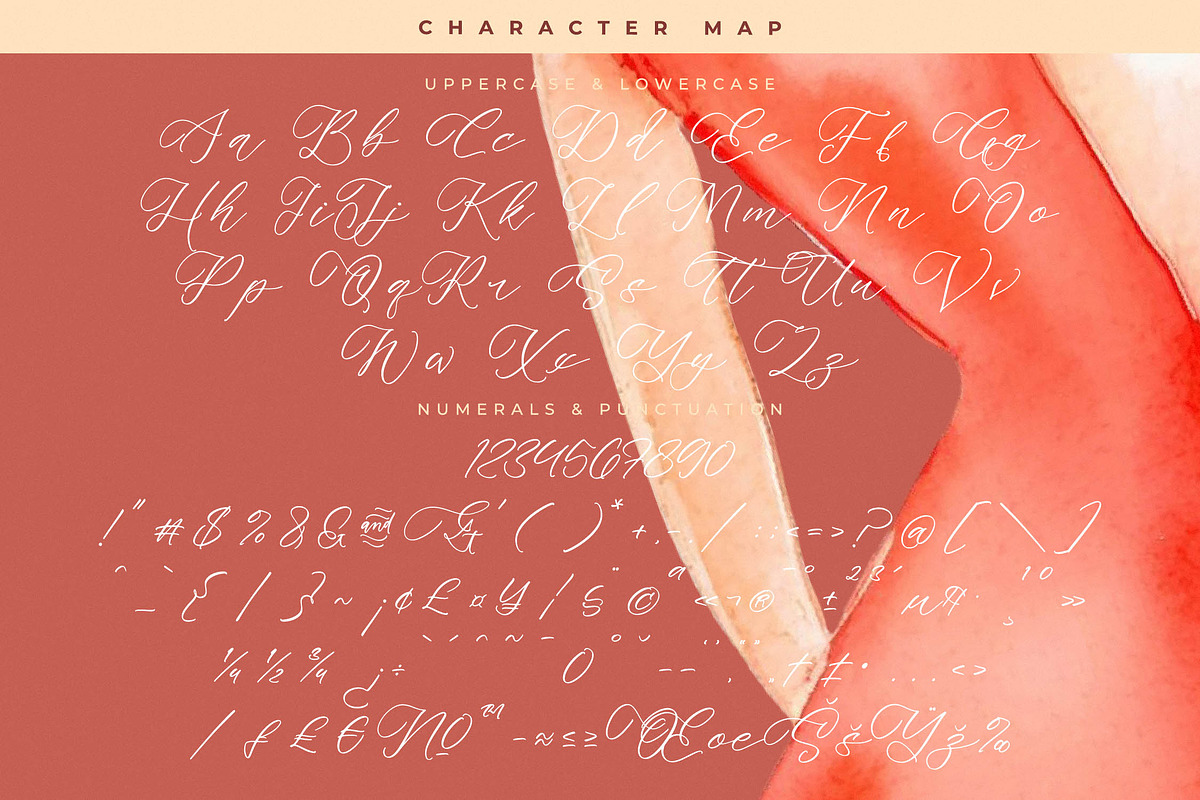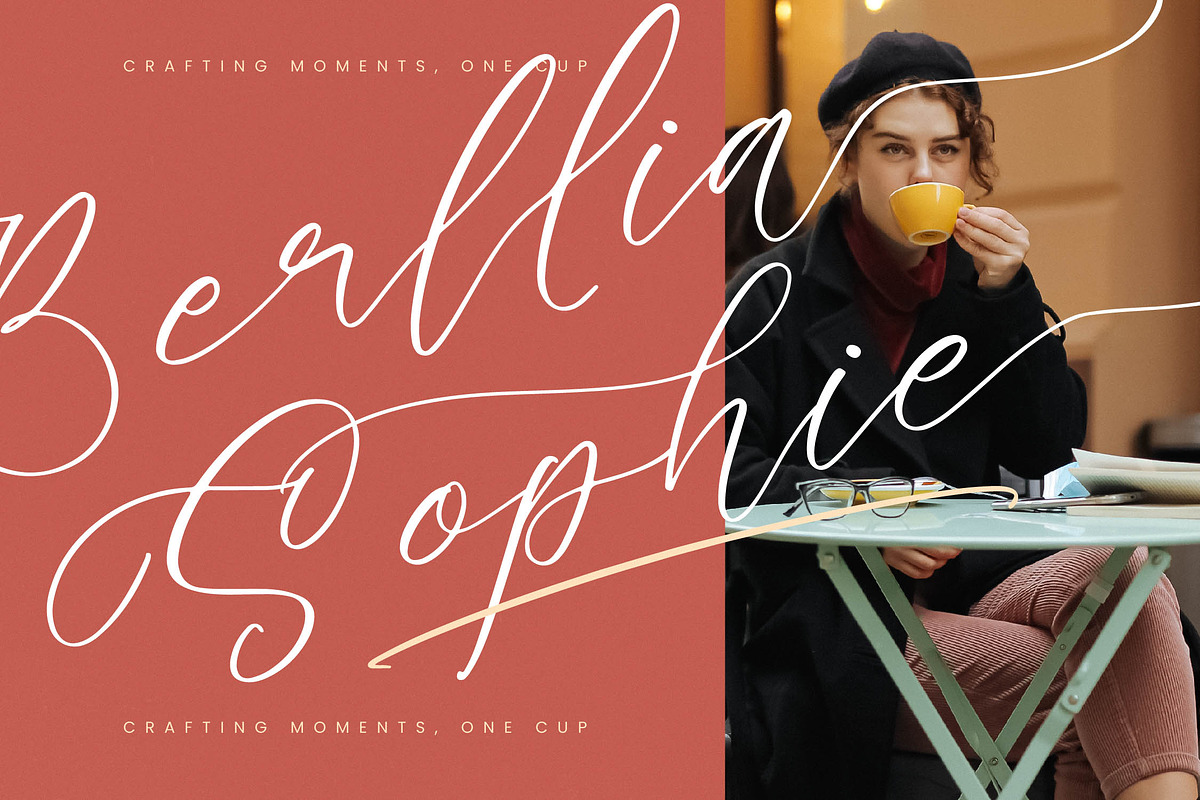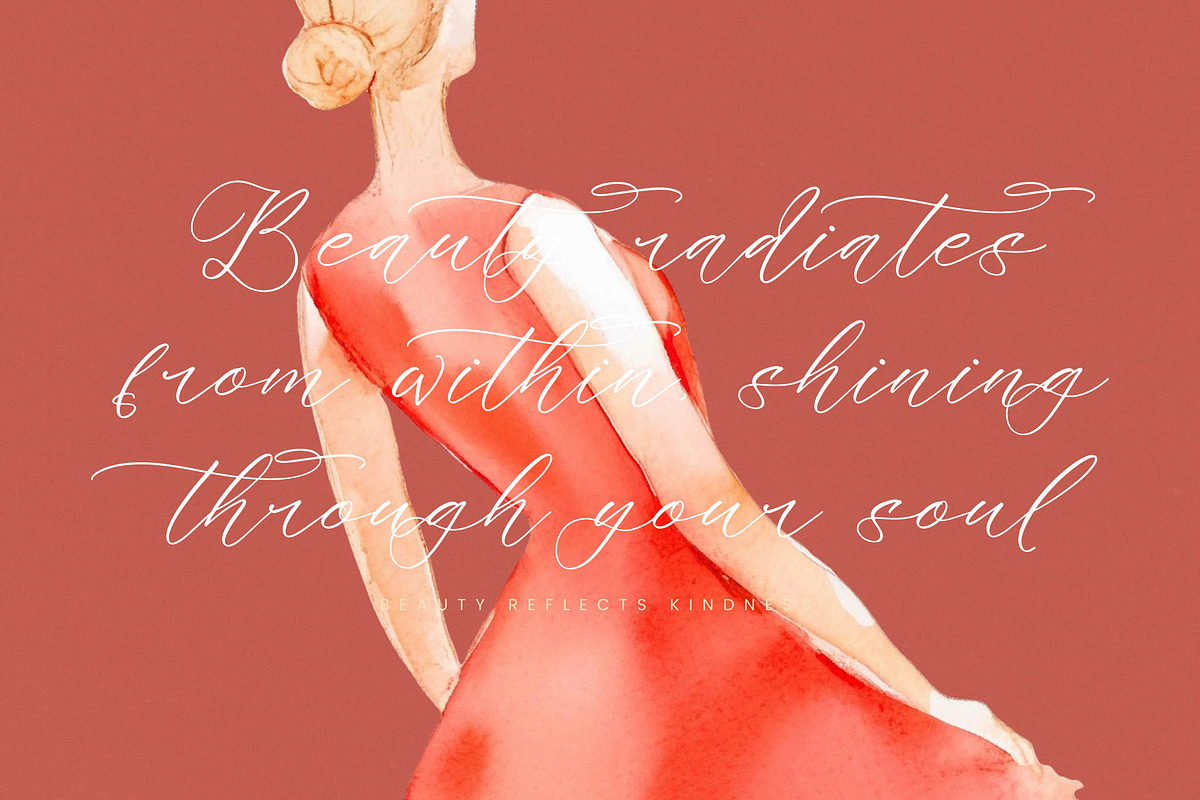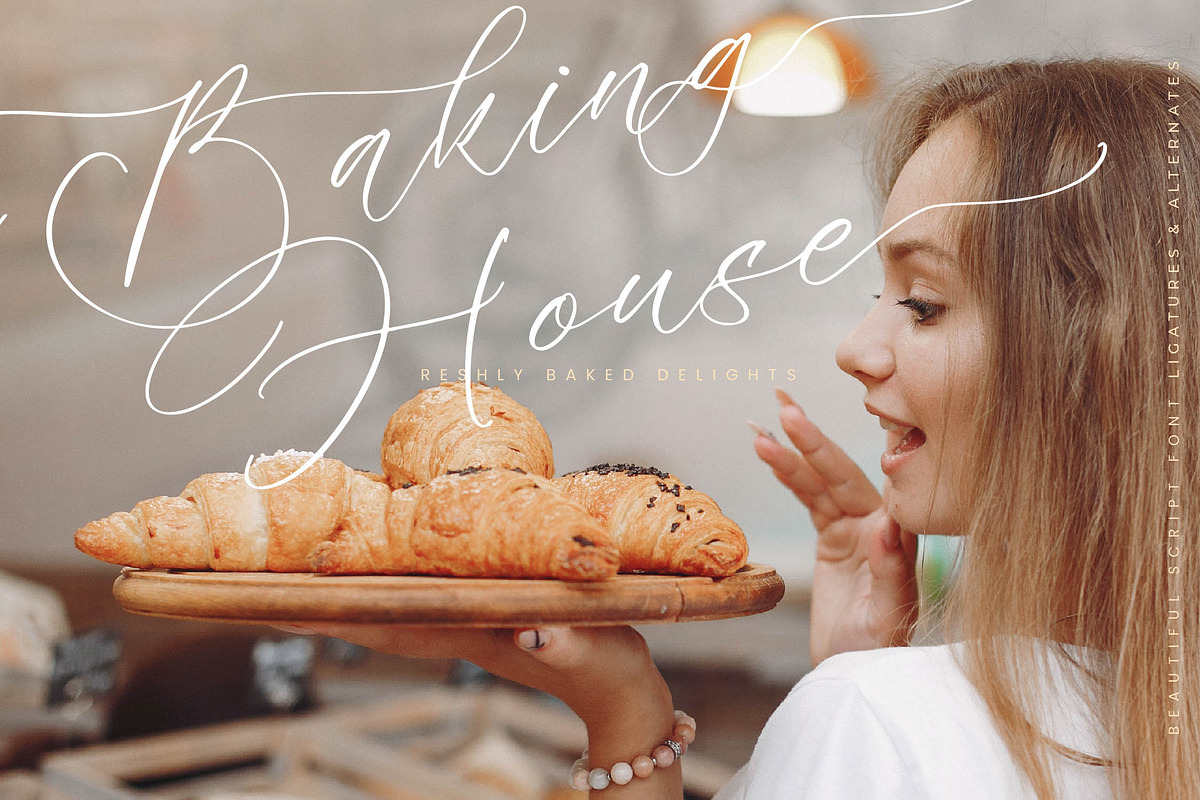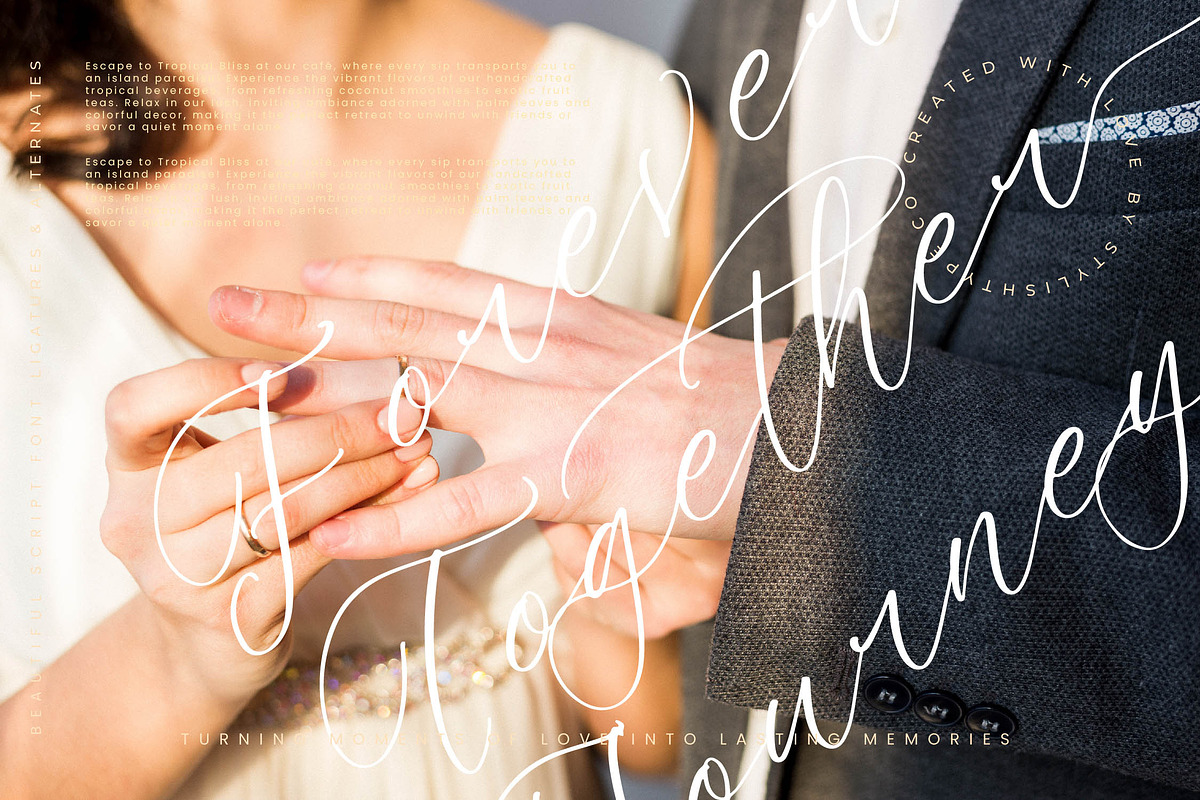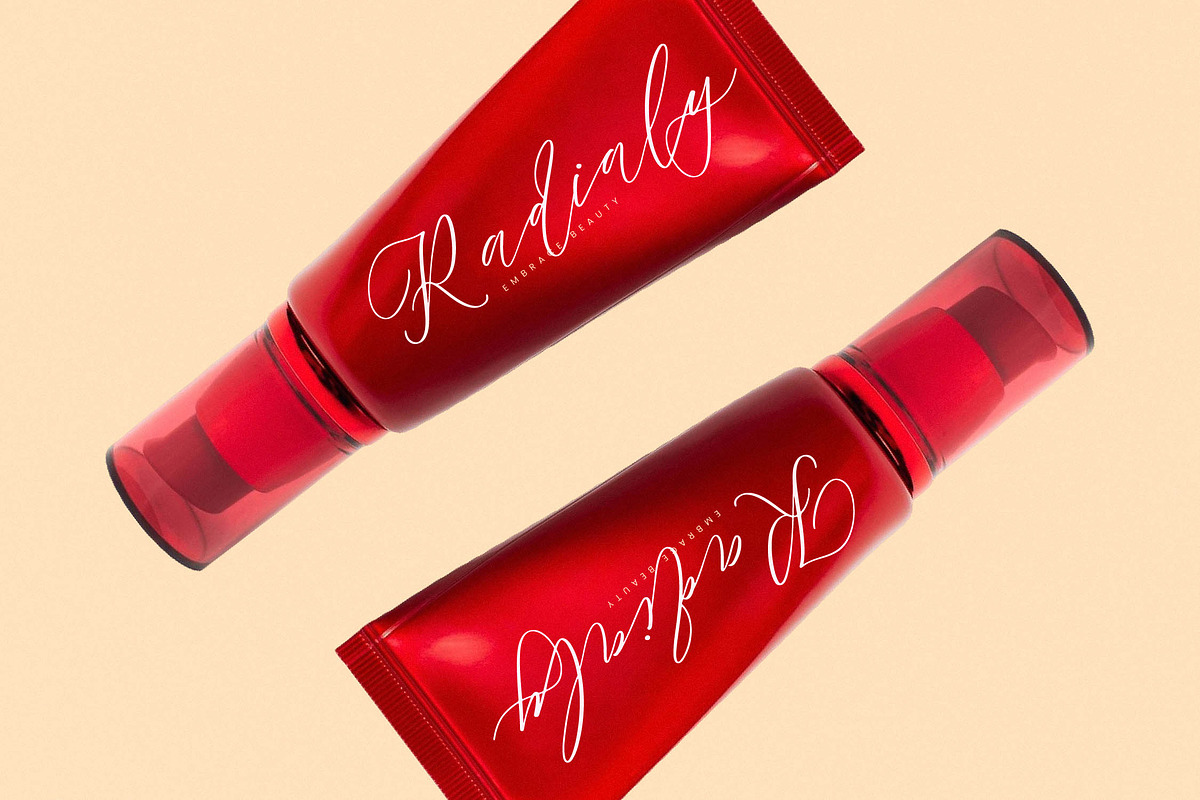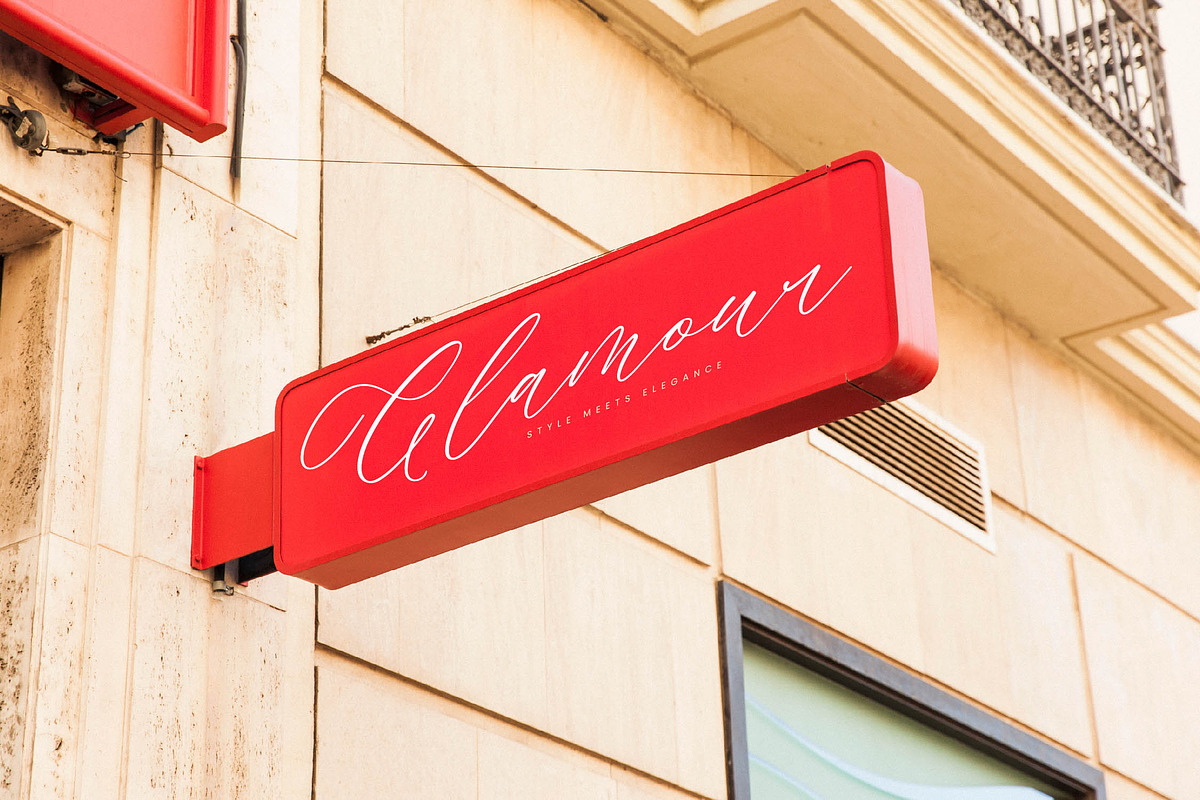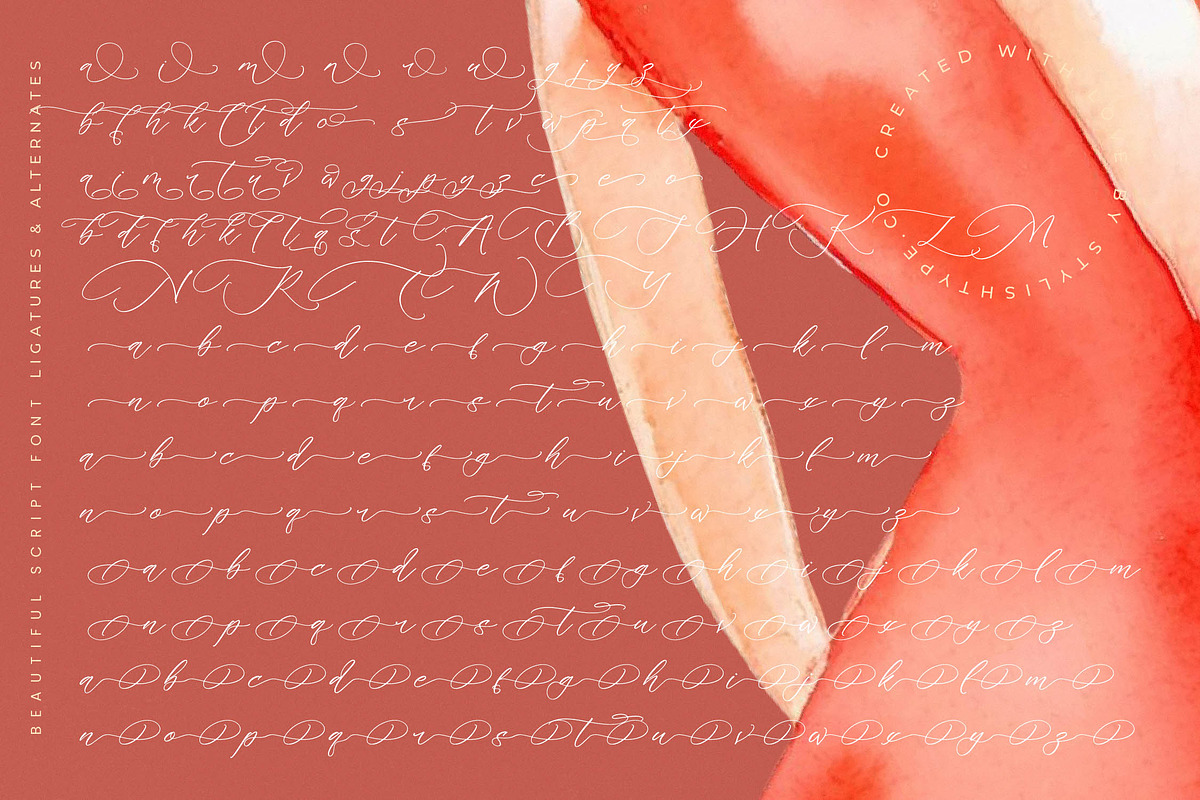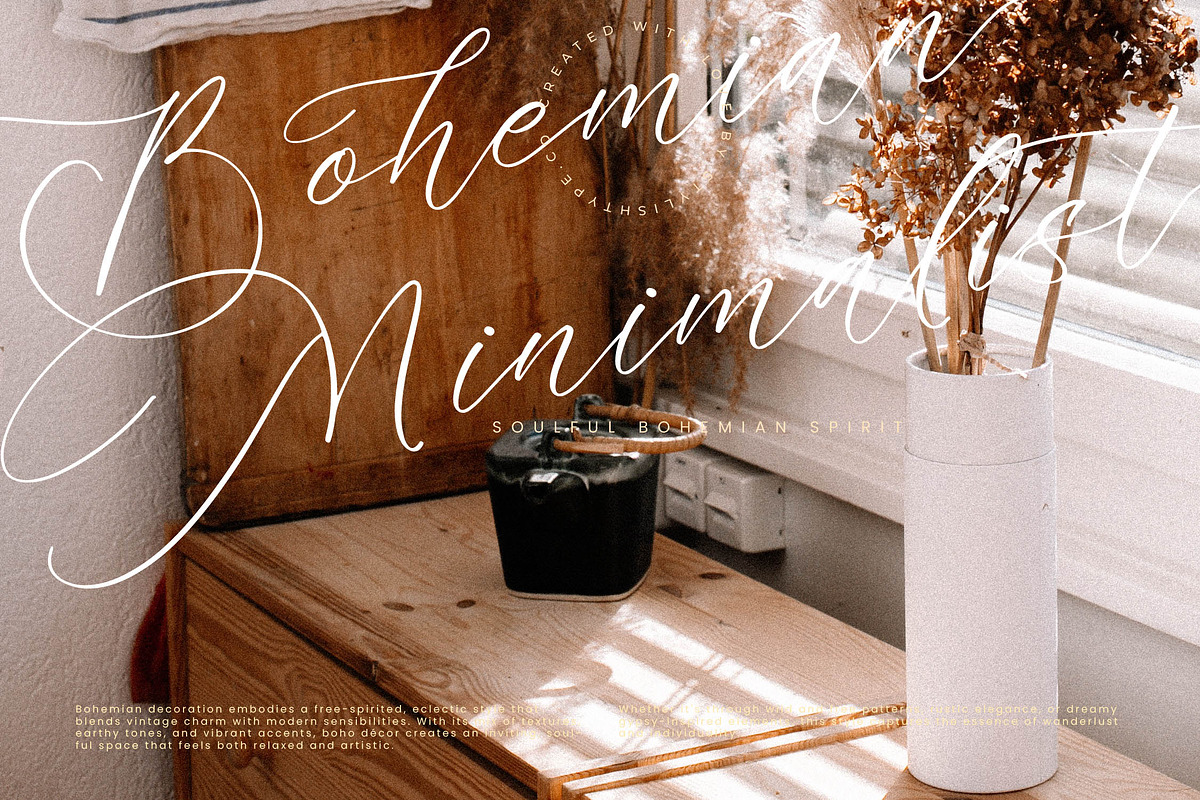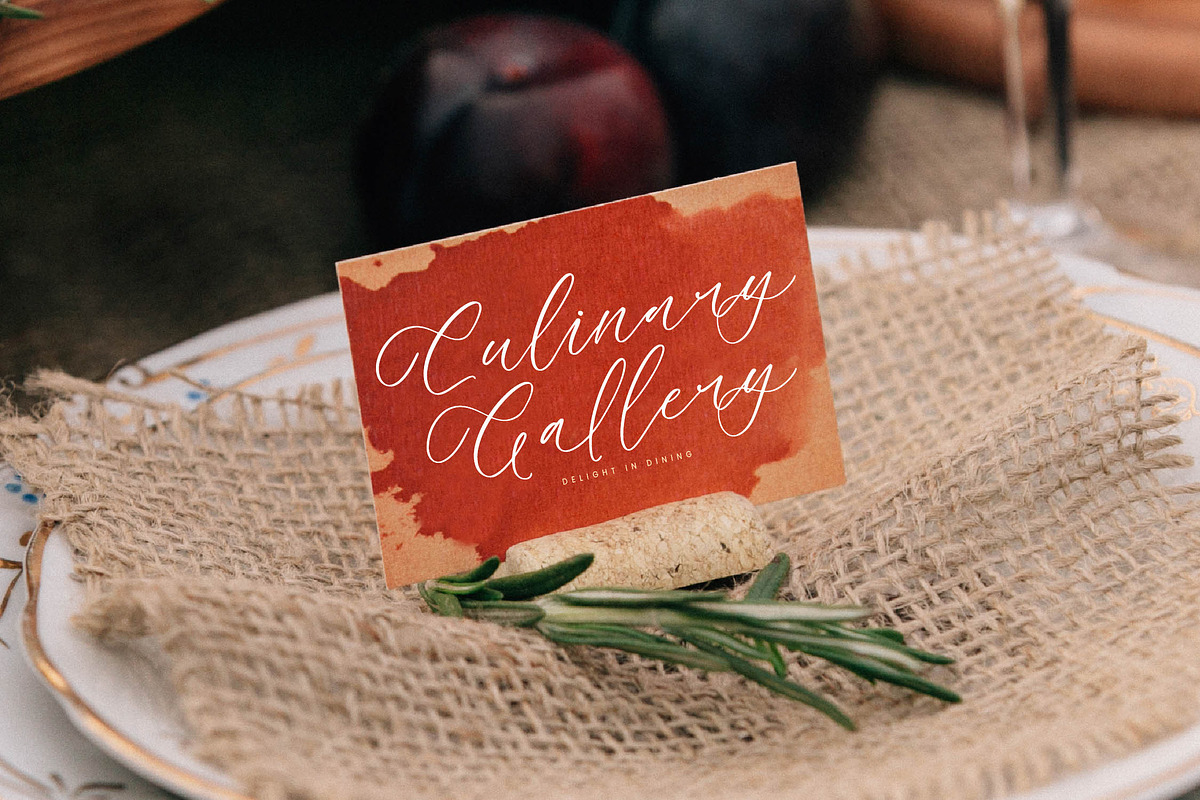
Melodic Banthera Beautiful Script
Melodic Banthera - Beautiful Script Font , from Stylishtype.Co , Suitable for any projects such as: logos, branding projects, homeware designs, product packaging, mugs, quotes, posters, shopping bags, t-shirts, book covers, name card, invitation cards, greeting cards, label, photography, watermark, special events, and all your other luxury and beautiful projects that need a Luxury Script taste.
- 93 Ligature 179 Alternates & Swashes